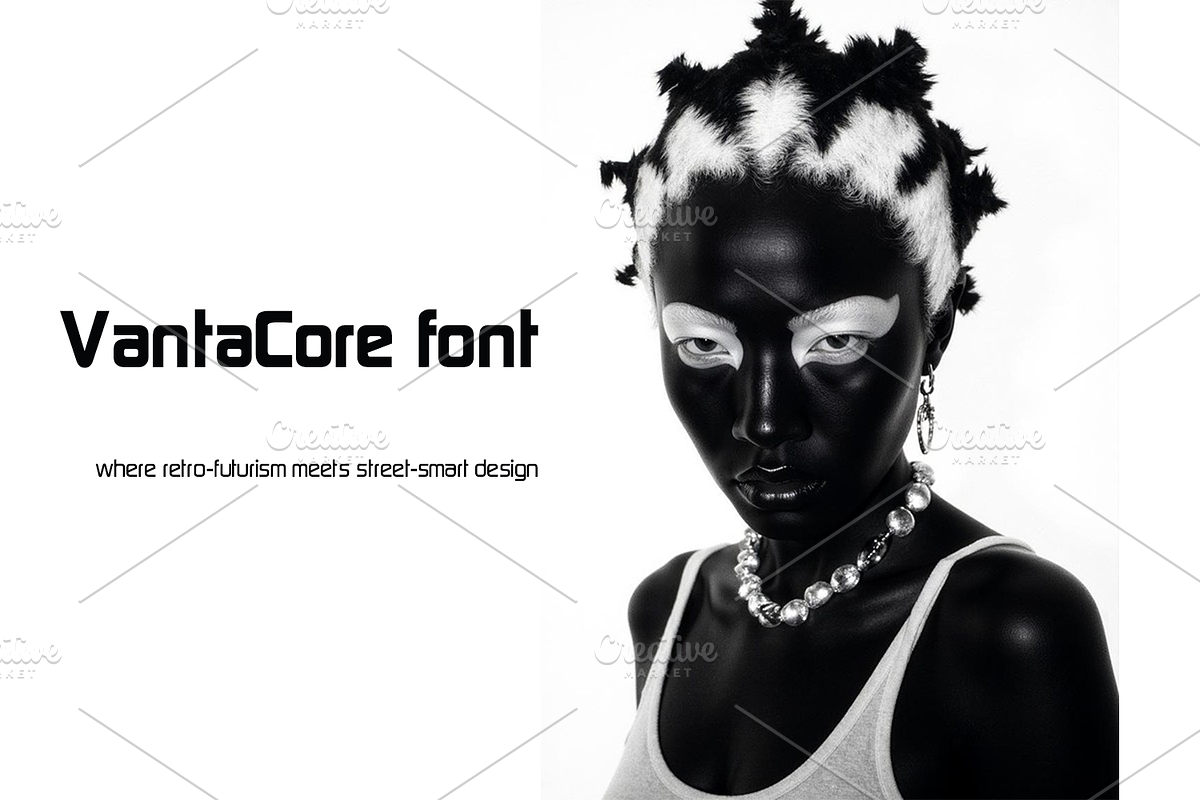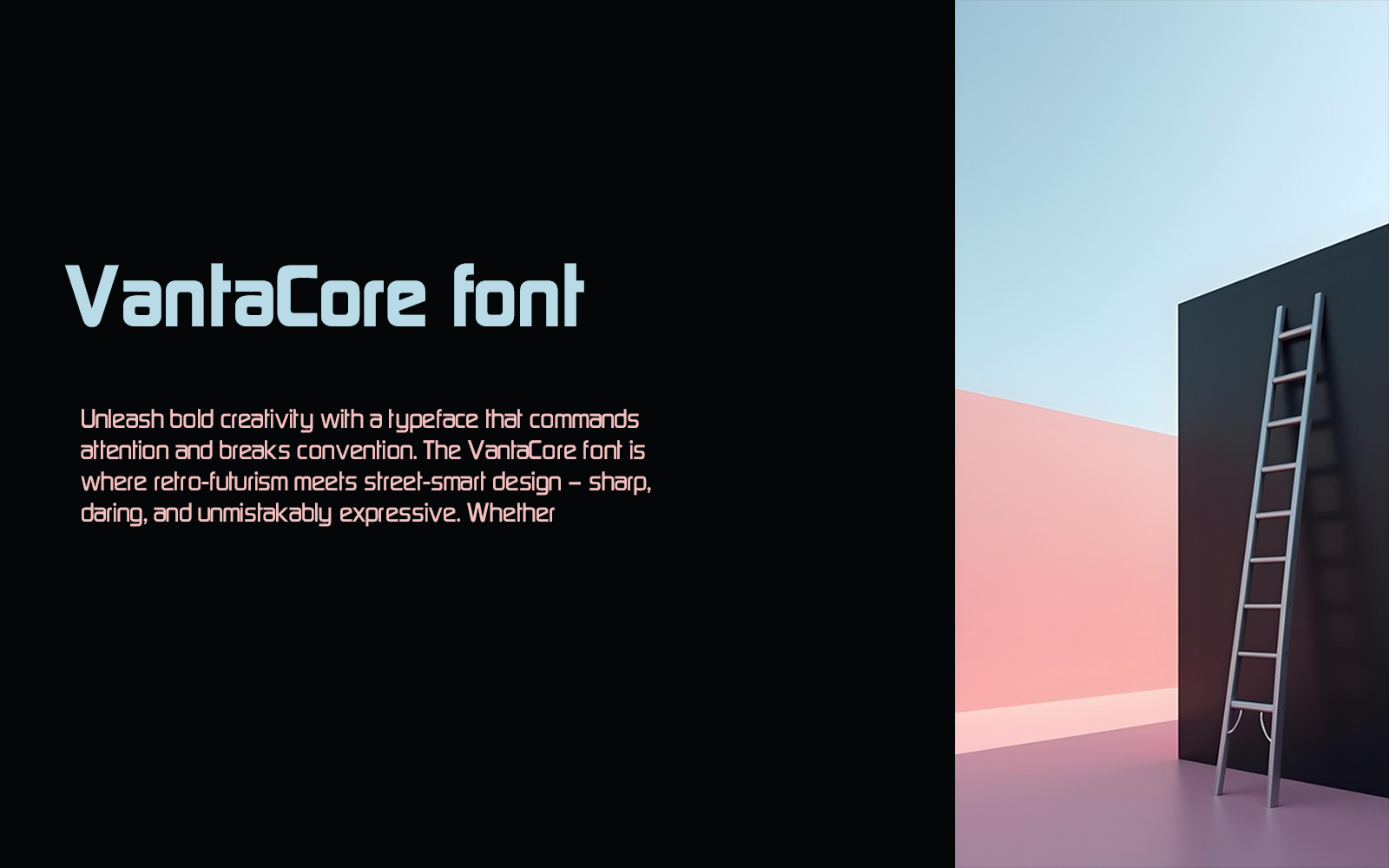
Unleash bold creativity with a typeface that commands attention and breaks convention. The VantaCore font is where retro-futurism meets street-smart design — sharp, daring, and unmistakably expressive. Whether
you're designing for music, fashion, or pop culture, this typeface brings maximum impact with a rebellious edge. Perfect for standout logos, bold posters, and cutting-edge branding — make your message impossible to ignore.